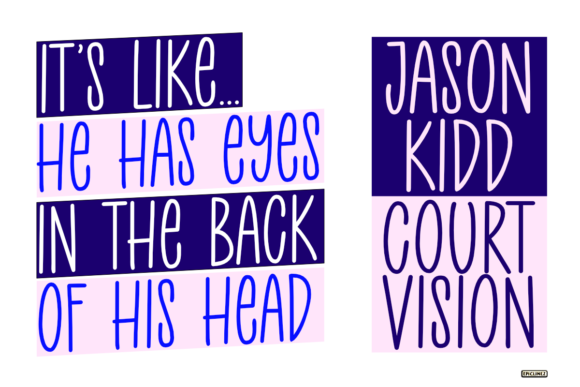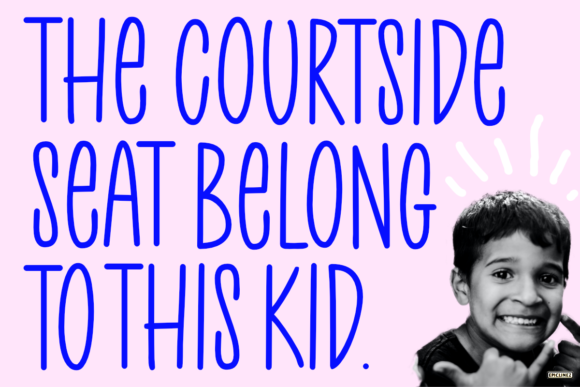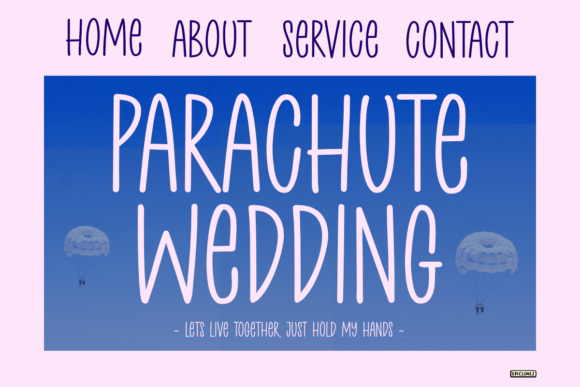
Courtside Font: Adding a Playful Touch to Your Creative Projects
Are you looking for a font that can add a playful and casual vibe to your creative projects? Look no further than Courtside Font! This all-caps handwritten font is designed to bring a sense of simplicity and charm to your designs, making it perfect for a wide range of applications.
What is Courtside Font?
Courtside Font is a casual, all-caps handwritten font that exudes a playful and carefree spirit. Its simplistic design makes it easy to read, while its unique character set ensures that your designs stand out from the crowd. Whether you’re working on a graphic design project, crafting a handmade card, or creating digital content, Courtside Font is the perfect choice.
Key Features of Courtside Font
- All-caps design: Courtside Font is an all-caps font, making it perfect for headlines, titles, and other applications where you want to make a statement.
- Handwritten style: The font’s handwritten style gives it a personal and playful touch, making it ideal for creative projects.
- Easy to read: Despite its casual design, Courtside Font is easy to read, making it perfect for body text and other applications where legibility is important.
- Simple and charming: The font’s simplistic design makes it charming and visually appealing, adding a touch of personality to your designs.
Uses for Courtside Font
Courtside Font is a versatile font that can be used in a wide range of creative projects, including:
- Graphic design: Use Courtside Font to add a playful touch to your graphic designs, including brochures, flyers, and posters.
- Handmade crafts: Add a personal touch to your handmade crafts, such as cards, gift tags, and scrapbook pages.
- Digital content: Use Courtside Font to create engaging digital content, including social media graphics, blog posts, and email newsletters.
- Signage: Courtside Font is perfect for signage, including menus, flyers, and directional signs.
Tips for Using Courtside Font
Here are a few tips for getting the most out of Courtside Font:
- Use it sparingly: While Courtside Font is a beautiful font, it can be overwhelming if used too much. Use it sparingly to add a touch of personality to your designs.
- Pair it with other fonts: Courtside Font pairs well with other fonts, including serif and sans-serif fonts. Experiment with different pairings to find the one that works best for your project.
- Experiment with colors: Courtside Font looks great in a variety of colors, from bright and bold to soft and pastel. Experiment with different colors to find the one that works best for your project.
Courtside Font is a beautiful and versatile font that can add a playful touch to your creative projects. Its simplistic design makes it easy to read, while its unique character set ensures that your designs stand out from the crowd. Whether you’re a designer, crafter, or digital content creator, Courtside Font is a great choice for adding a personal touch to your work.